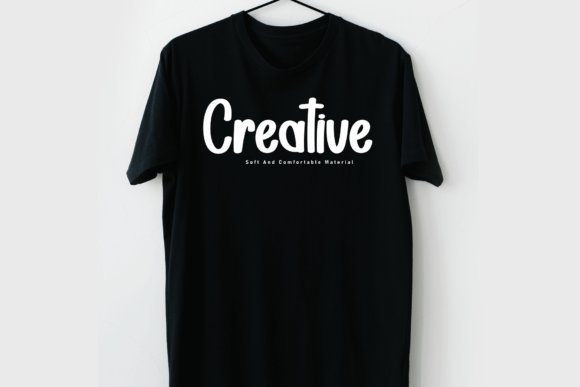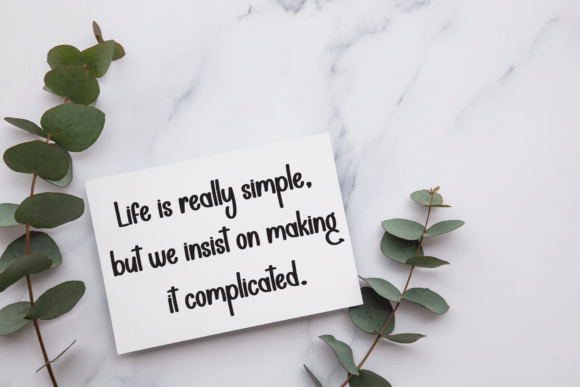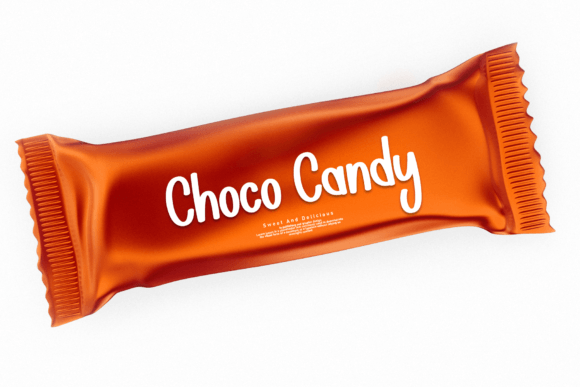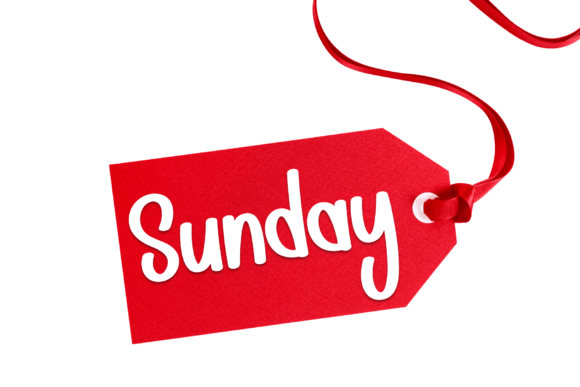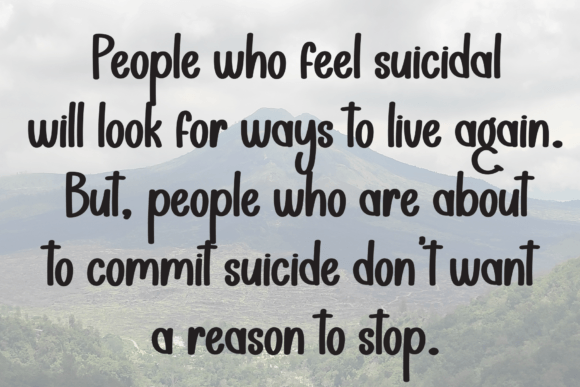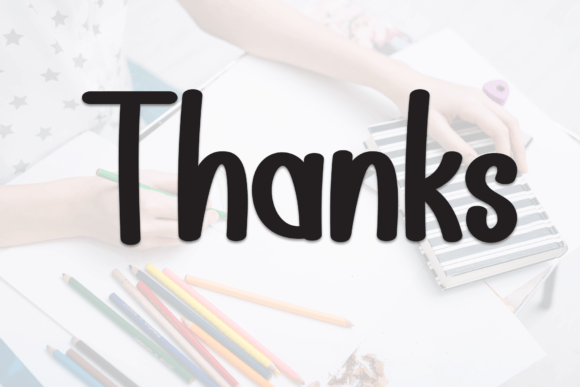
Introduction to Happy Coloring Font
Unveil your creativity with the delightful charm of this friendly, handcrafted display font.
Exuding a sweet and vivacious vibe, this unique typography is the perfect pick for crafting whimsical wedding invitations, delightful cards, or any design project requiring a sprinkle of fun Imbued with a playful elegance, this font infuses every letter with a lively, joyous spirit, transforming every design into a vibrant masterpiece.
Key Features of Happy Coloring Font
Why Choose Happy Coloring Font?